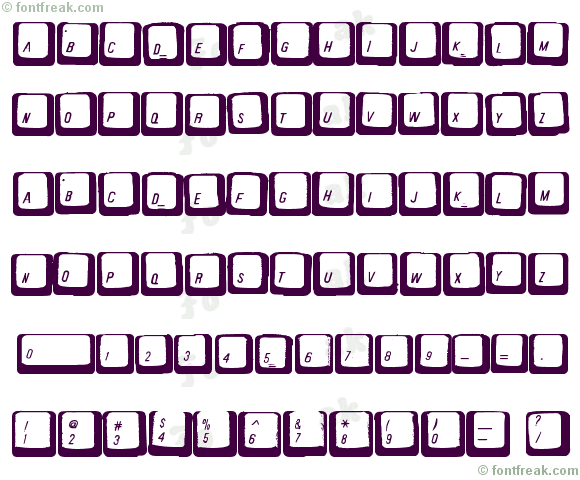
Carpal Tunnel
About Carpal Tunnel
The Carpal Tunnel font by Channelzero! is a distinctive display typeface that merges playful creativity with an engaging visual style. Created in 1998 by Andi Jones, this shareware font boasts a unique character set that embodies a quirky, handmade aesthetic. Its blocky letterforms feature uneven stroke weights and a slightly distressed finish, giving it a vintage vibe that's both eye-catching and approachable. The spacing between the letters is moderate, allowing for easy readability, while the decorative elements add a sense of character without overwhelming the design.
This font is ideal for various creative applications. It shines in contexts such as movie posters, where its bold presence can capture attention and convey a sense of fun. Additionally, it works well for restaurant menus, providing a casual yet stylish touch that invites diners in. The Carpal Tunnel font is also an excellent choice for personalized invitations, such as birthday parties or casual gatherings, where a light-hearted tone is desired. Small business owners can leverage its playful design to create memorable branding materials that resonate with their target audience.
Graphic designers and content creators will find the Carpal Tunnel font particularly appealing due to its unique charm and versatility. It offers an opportunity to stand out in a crowded market, making every project feel special and distinctive.